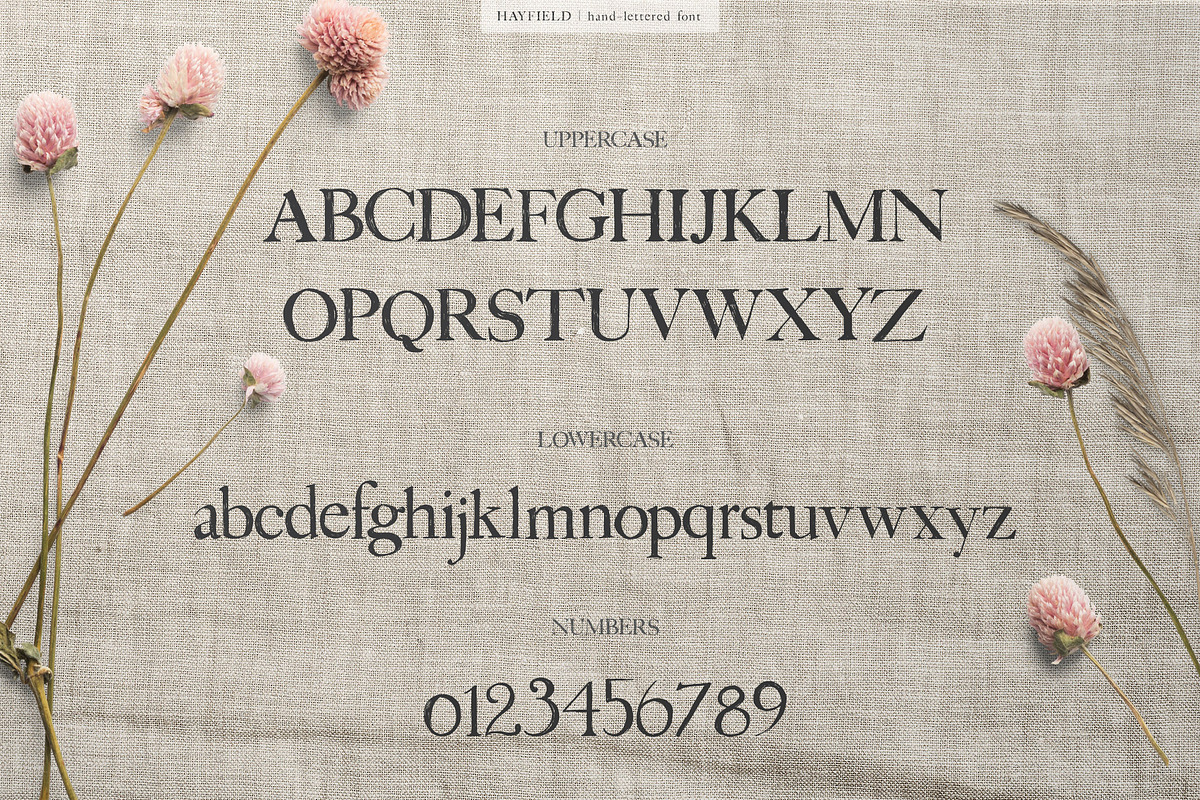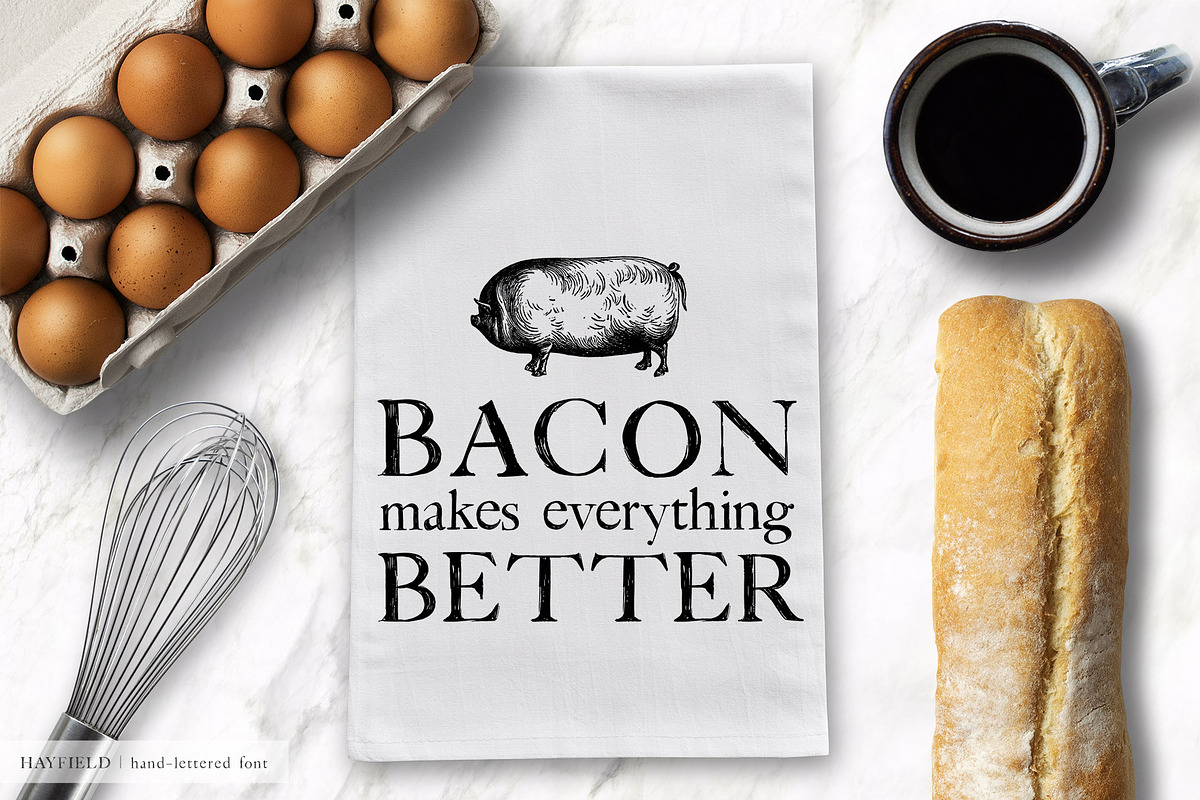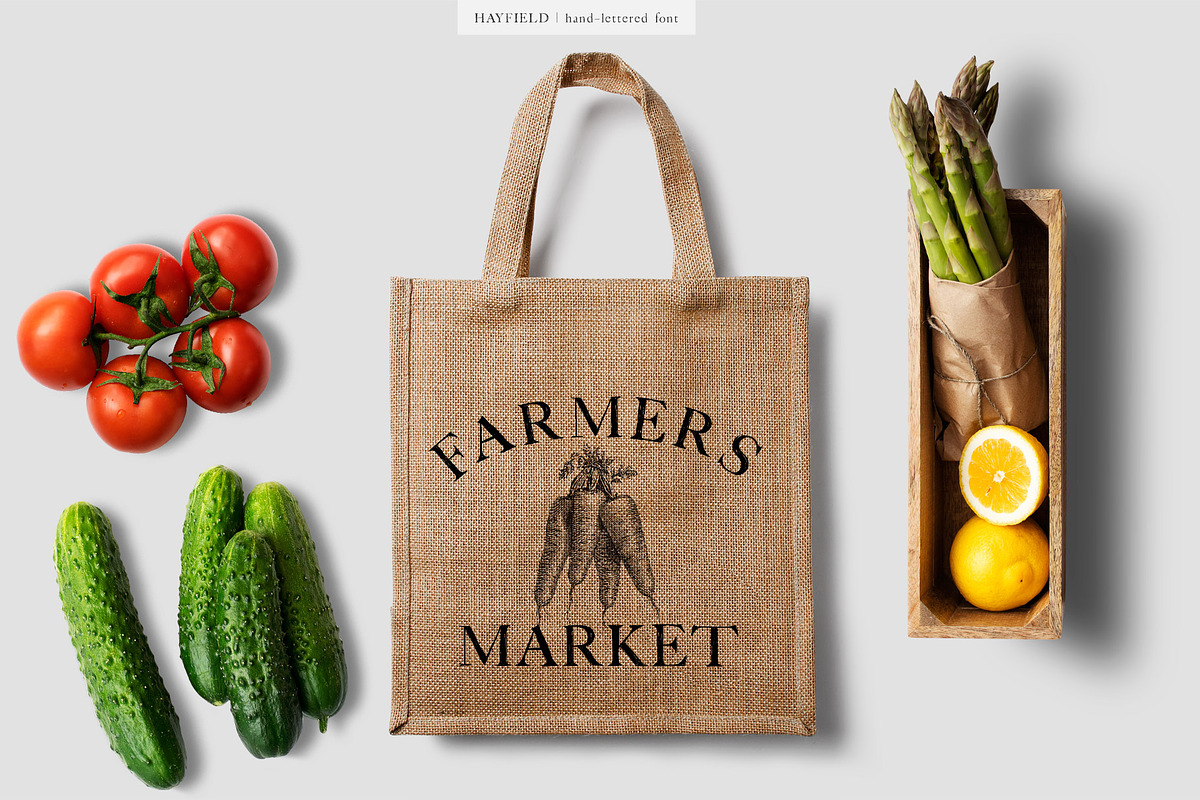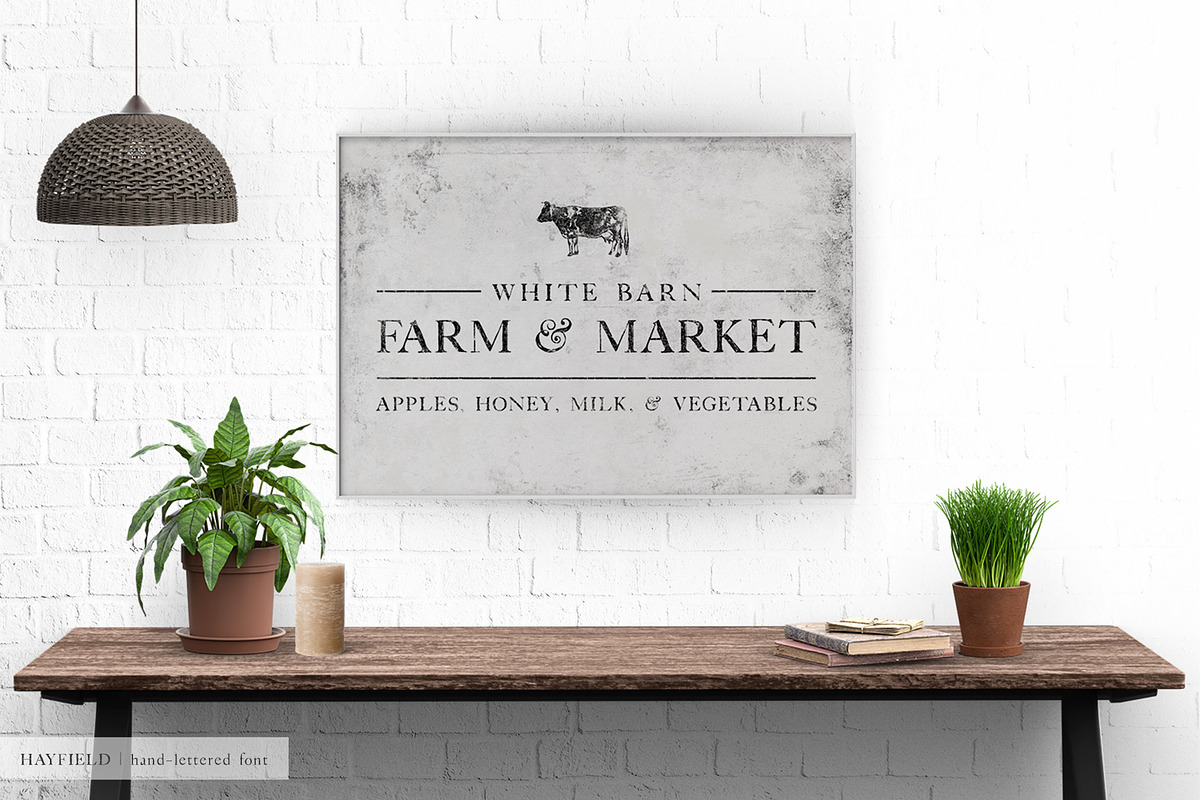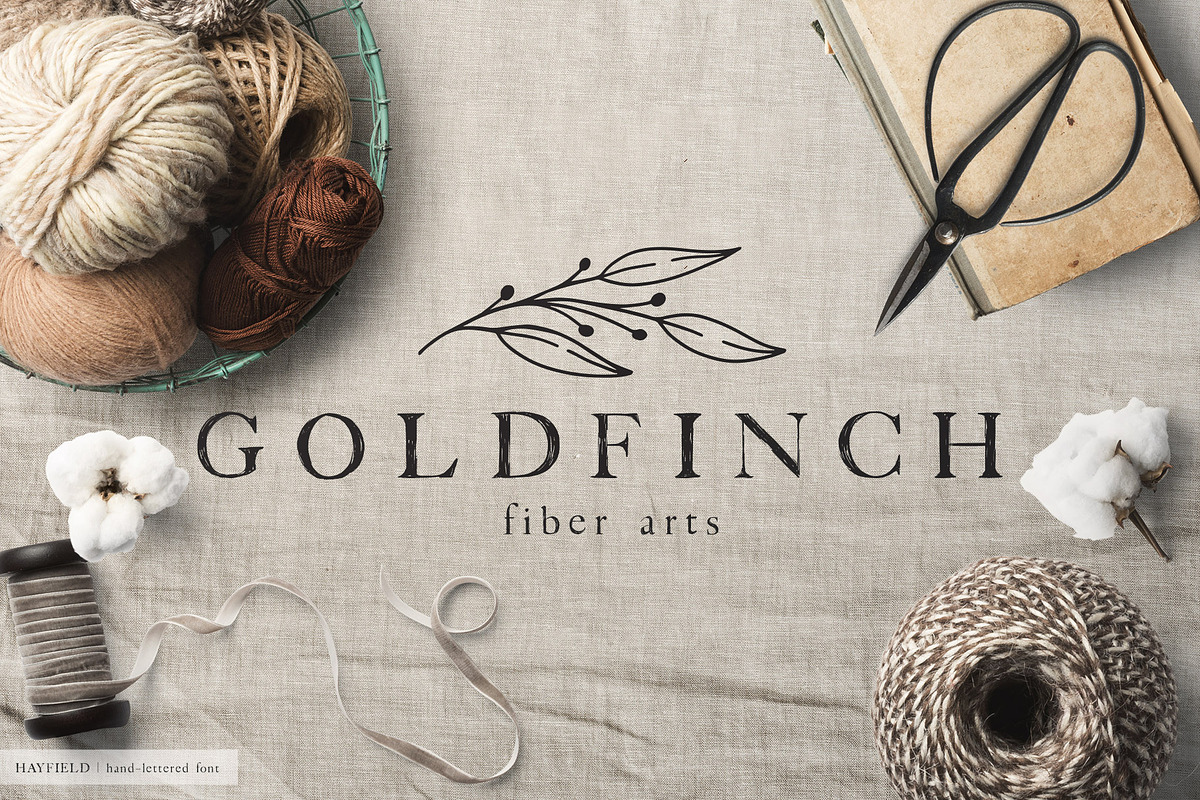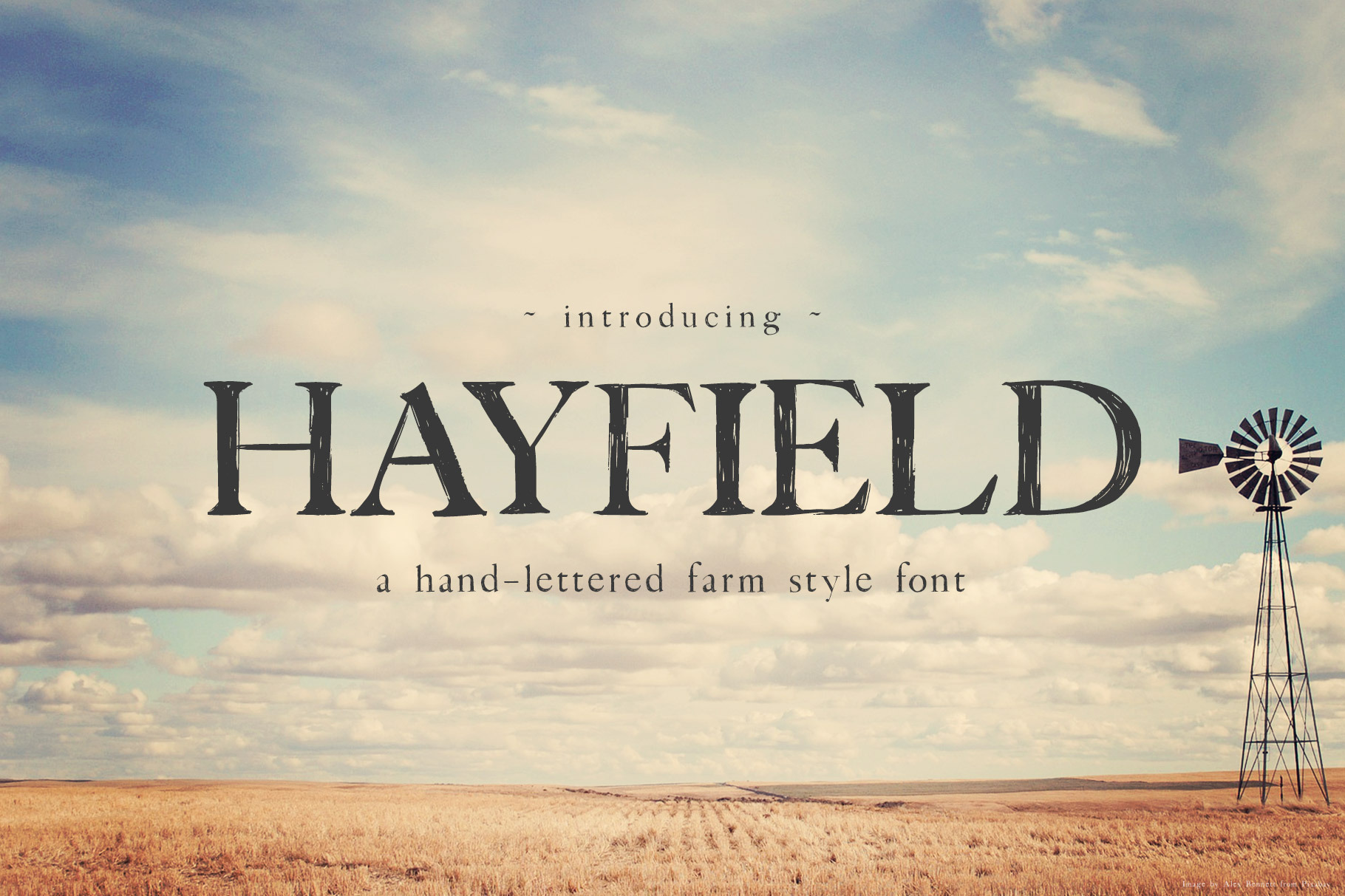
Hayfield Hand Lettered Font
Introducing Hayfield a hand-lettered farm style serif font. Classic styling with rustic texture will make this font great for logos, signs, invitations, journals, and so much more.
Multilingual support includes the Latin-1 letter characters which supports most Western European languages such as Albanian, Catalan, Danish, Dutch, English, Faeroese, Finnish, French, German, Galician, Irish, Icelandic, Italian, Norwegian, Portuguese, Spanish, and Swedish.